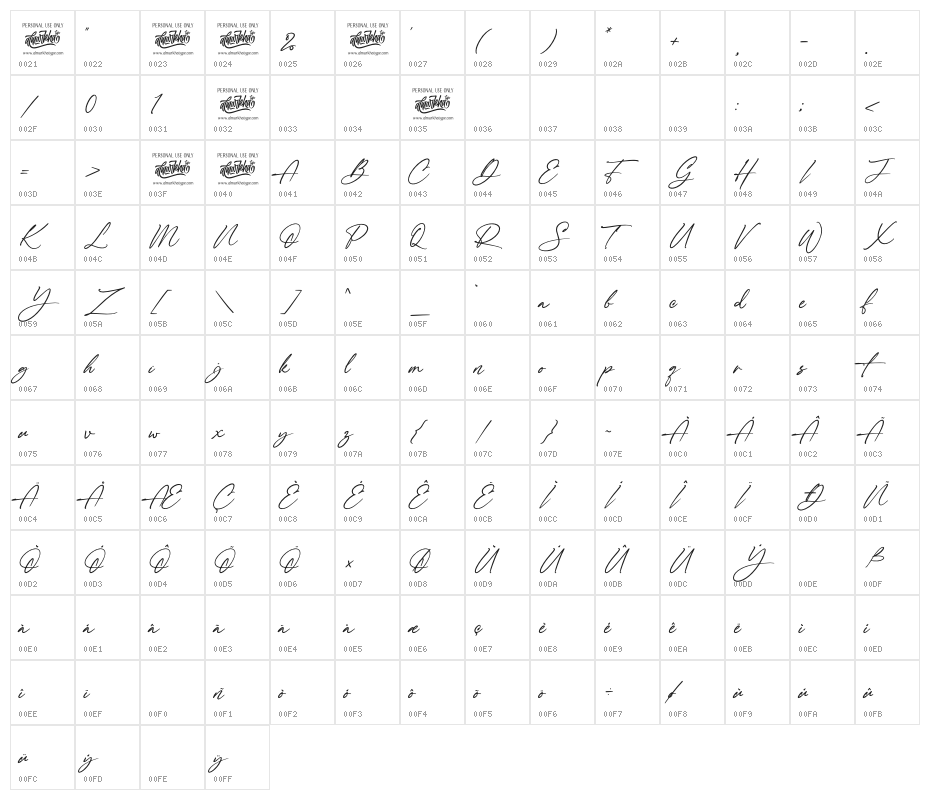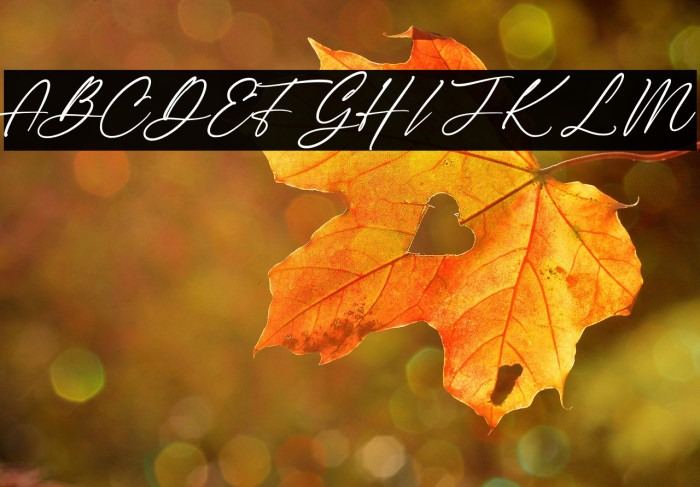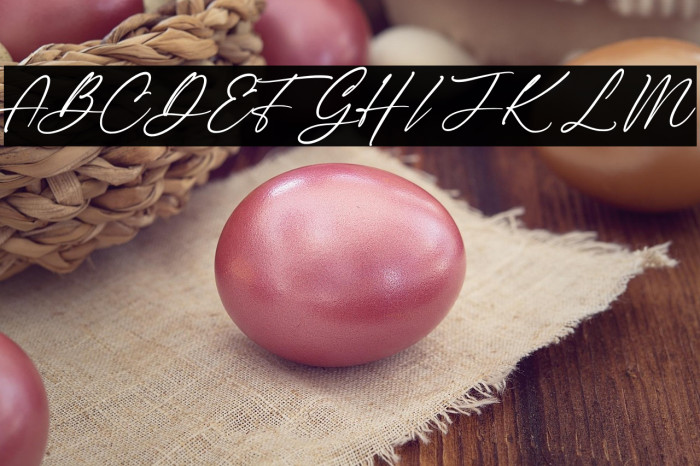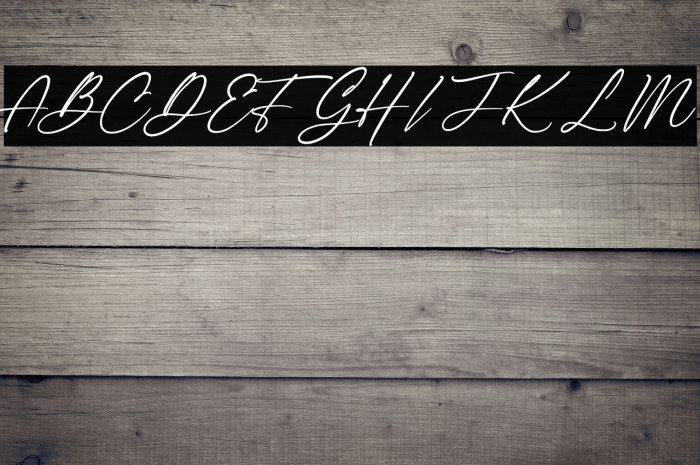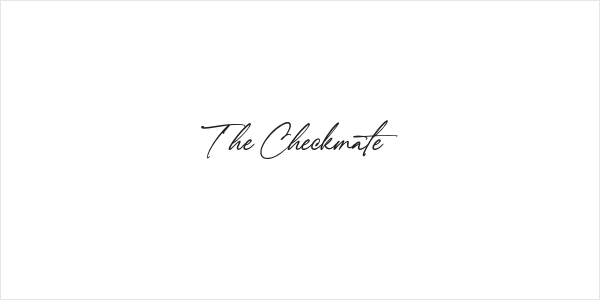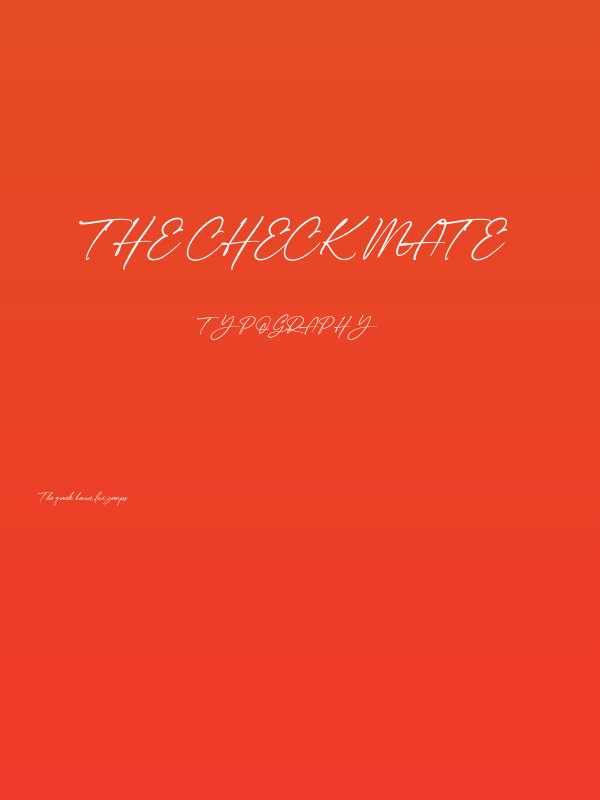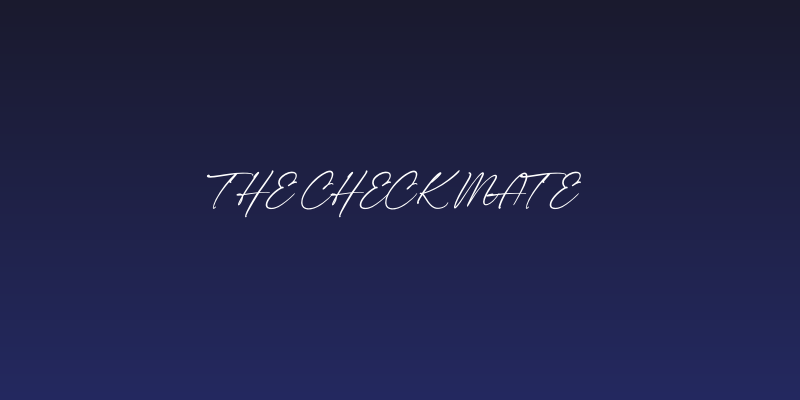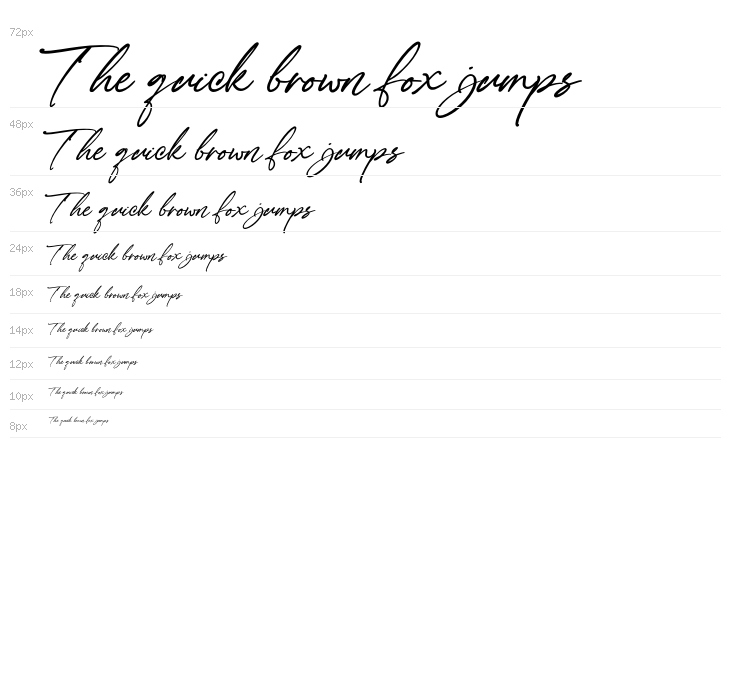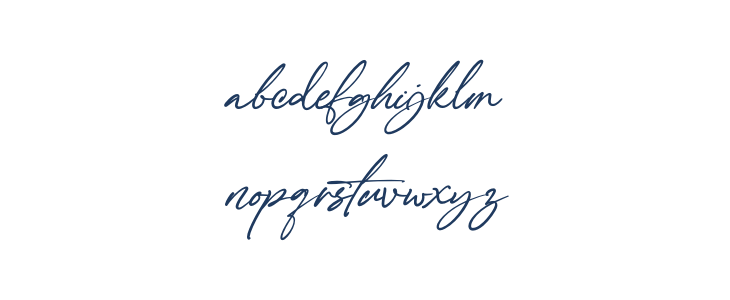
The Checkmate Font
The Checkmate Description
This elegant script font features a flowing, cursive style with a modern twist. The uppercase letters are tall and slender, with graceful loops and swashes that add a touch of sophistication. The lowercase letters maintain a consistent flow, connecting smoothly to create a seamless appearance. The numerals are styled to match the cursive nature, adding a cohesive look to any text. Special characters are included, enhancing the font's versatility for various design needs. This font is ideal for personal use, offering a stylish and refined aesthetic.
| Use Case | Logos, Invitations, Decorative text |
| Proposed Projects | Ideal for wedding invitations, elegant branding, personal stationery, and decorative quotes. |